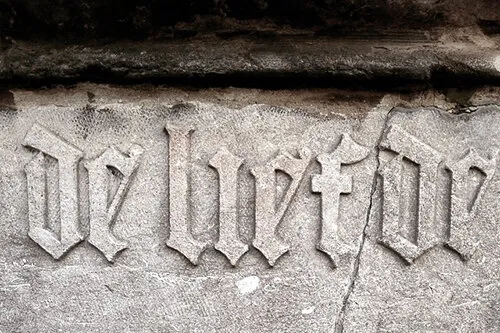
typewalk Antwerp 11
Tailor-made typewalk through the streets of Antwerp to reveal the hidden gems of Antwerp city lettering and learn more about their historical background and typographical context.